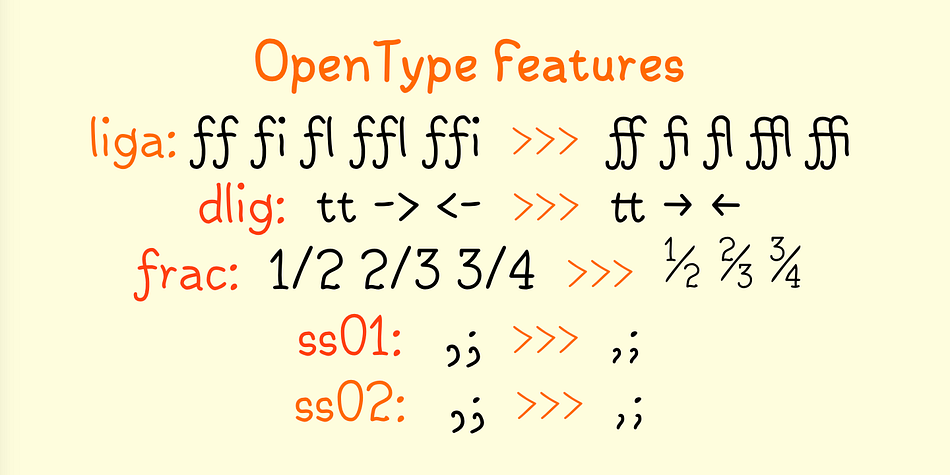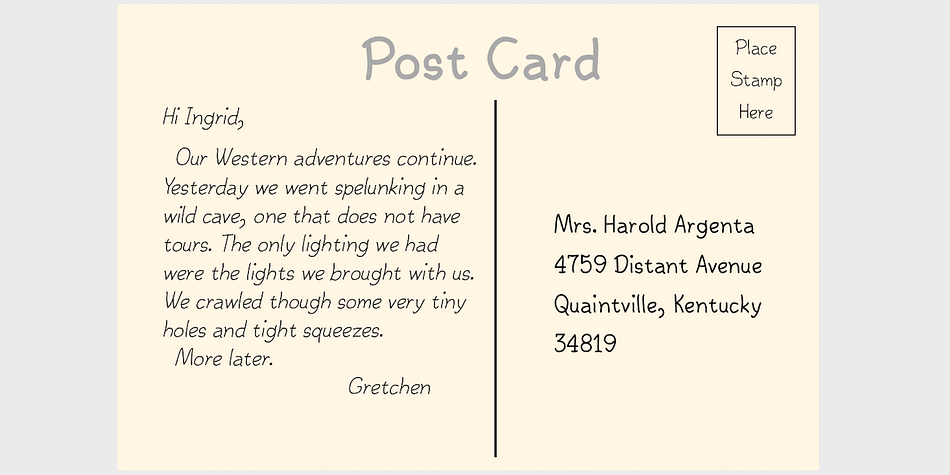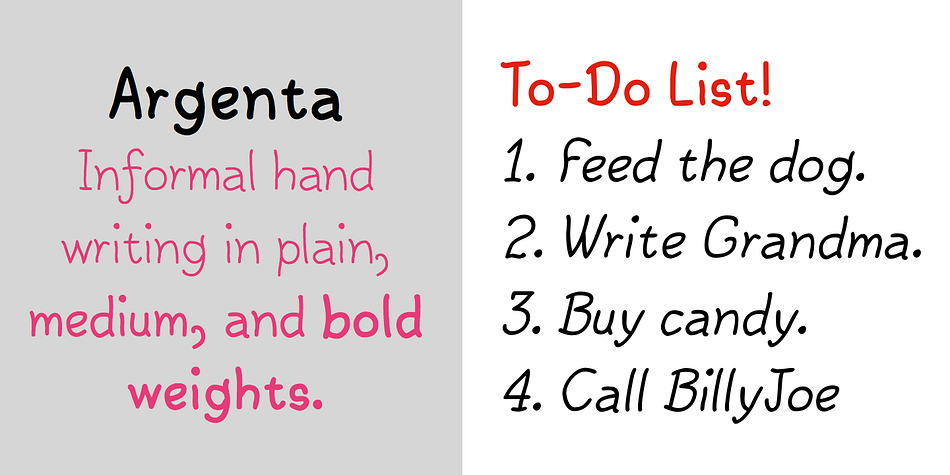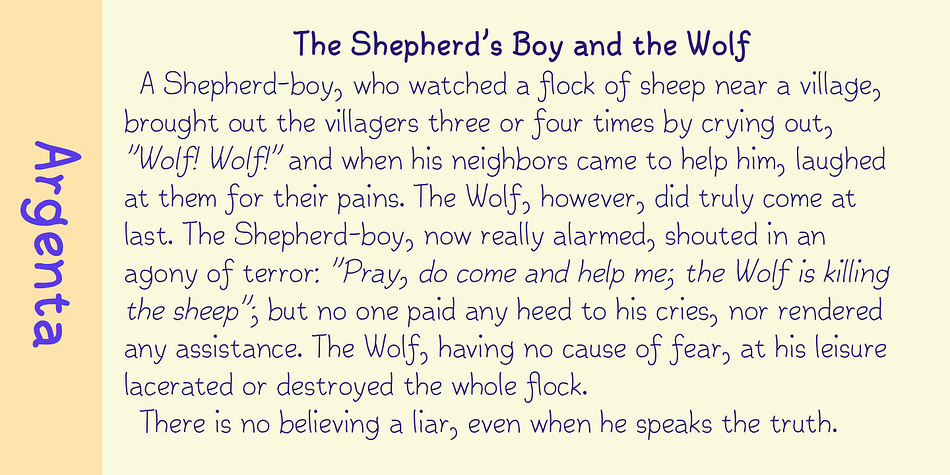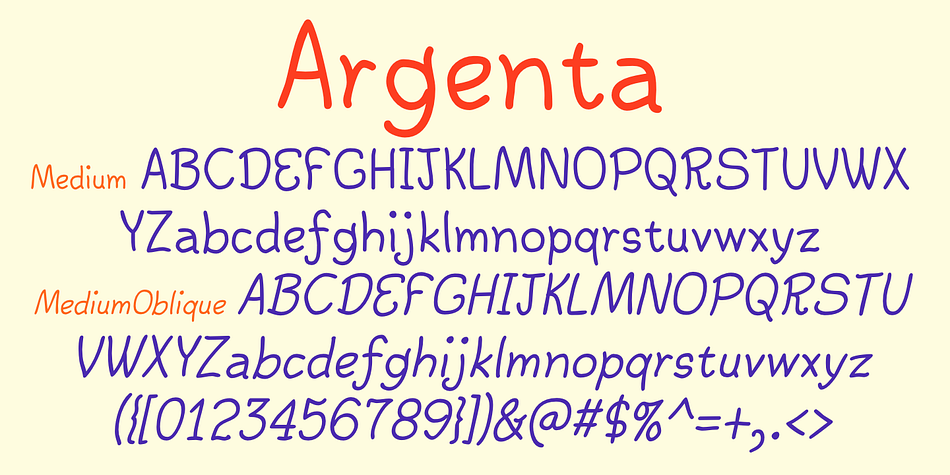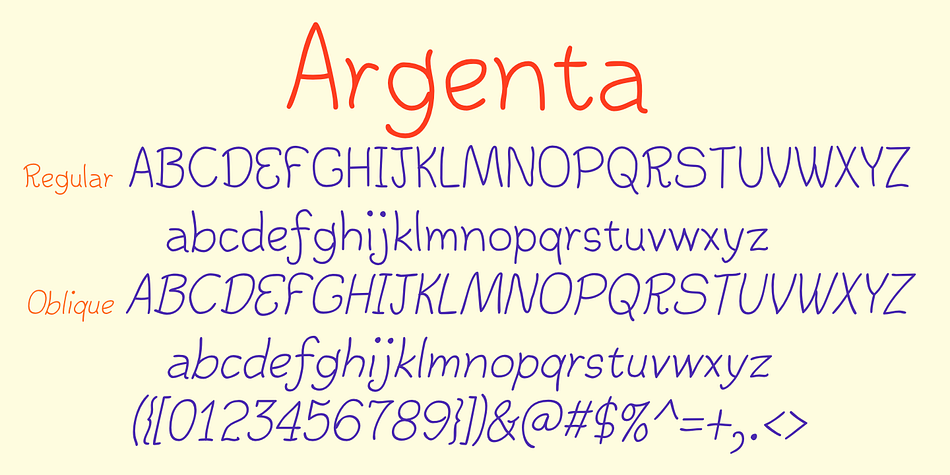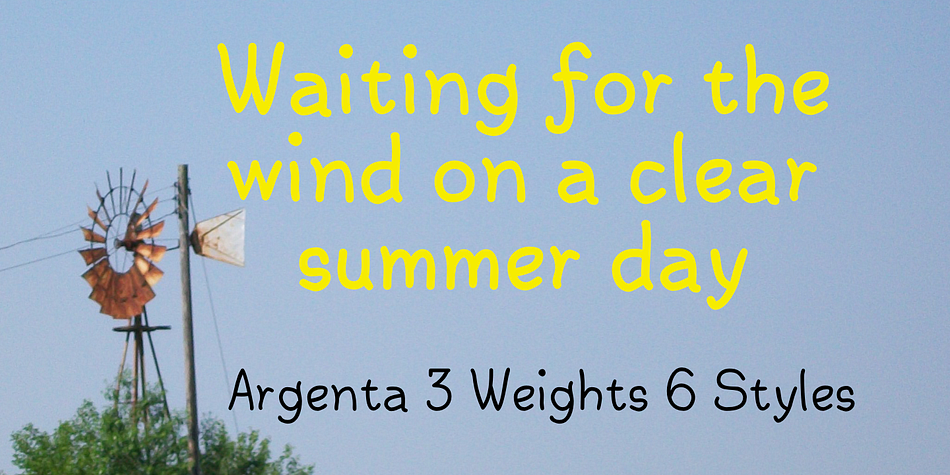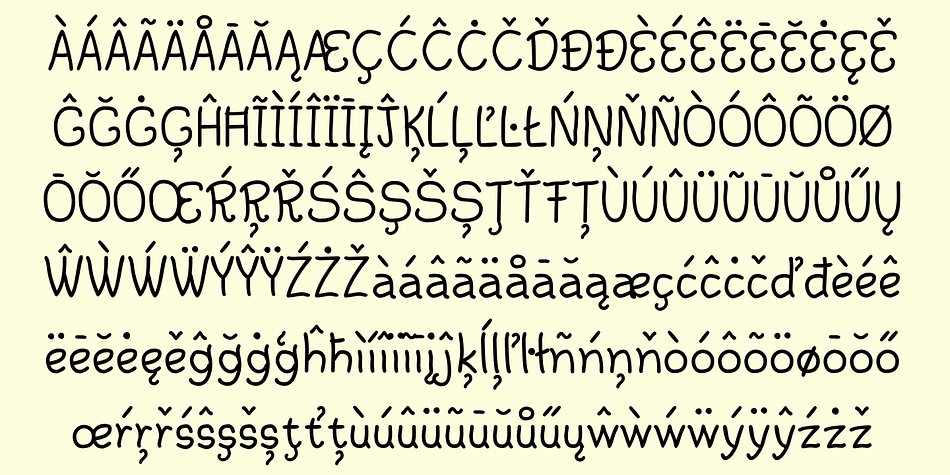
Designed by Robert Schenk, Argenta is a hand display, hand drawn and kids font family. This typeface has six styles and was published by Ingrimayne Type.
Argenta is an informal, “hand-printing” font that has the appearance of writing by a child in elementary school. Argenta comes in three weights and has an oblique style for each weight. The child handwriting characteristic is developed in the ArgentaBobbed fonts, which add dots or little balls to the ends of letters. (Could they be called, “Ball Serif?”)